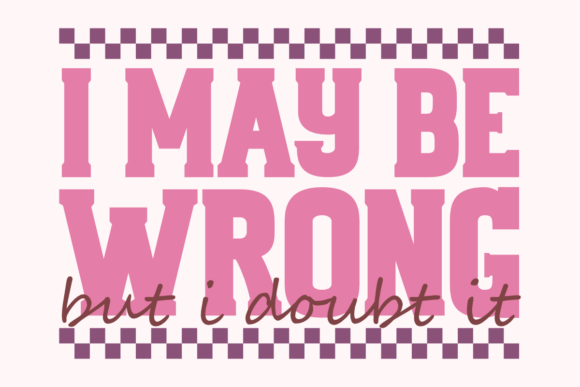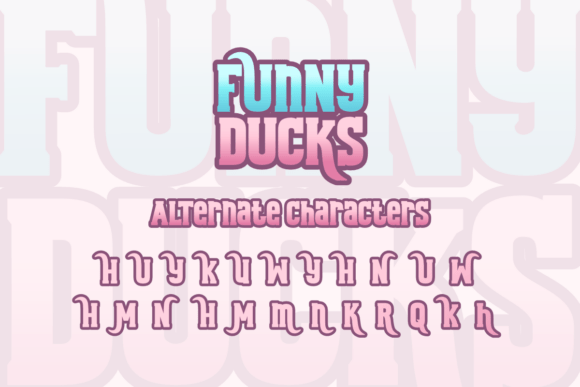
The Quacky Charm of Funny Ducks Font: A Designer’s Delight
I still remember the time I was working on a project for a client who wanted a sassy quote t-shirt design. I had all the ideas, but the font just wasn’t cooperating. It was either too boring or too over-the-top. That’s when I stumbled upon Funny Ducks Font, and it was love at first sight! 😍 The bold, playful letterforms with a cheeky attitude and a splash of sarcasm were exactly what I needed to bring the design to life.
An Honest Review: The Good, the Bad, and the Quirky
What I Love About Funny Ducks Font ✨
- ✅ Bold and playful: Funny Ducks Font is perfect for making a statement with your designs. The chunky letterforms are eye-catching and fun.
- ✅ Sarcastic charm: The font’s cheeky attitude and splash of sarcasm add a touch of personality to any design.
- ✅ Versatile: From sassy quote t-shirts to funny mugs, quirky tote bags, and sublimation designs, Funny Ducks Font is a versatile addition to any design toolkit.
- ⚠️ Limited formal use: Due to its playful nature, Funny Ducks Font might not be the best choice for formal or professional designs.
- ⚠️ Legibility at small sizes: The font’s chunky letterforms can become less legible at very small sizes, so it’s best used for headlines or titles.
The Designer Inspiration Behind Funny Ducks Font
The story behind Funny Ducks Font is one of creativity and experimentation. The designer, inspired by the playful nature of ducks, set out to create a font that would bring a smile to people’s faces. With its bold, chunky letterforms and cheeky attitude, Funny Ducks Font is the perfect reflection of that inspiration.
| Font Name | Funny Ducks Font |
Q: What is Funny Ducks Font best used for?
A: Funny Ducks Font is best used for designs that require a bold, playful, and cheeky attitude, such as sassy quote t-shirts, funny mugs, quirky tote bags, and sublimation designs.
Q: Is Funny Ducks Font easy to use?
Q: Are there any limitations to using Funny Ducks Font?
A: Yes, due to its playful nature, Funny Ducks Font might not be the best choice for formal or professional designs. Additionally, the font’s chunky letterforms can become less legible at very small sizes.